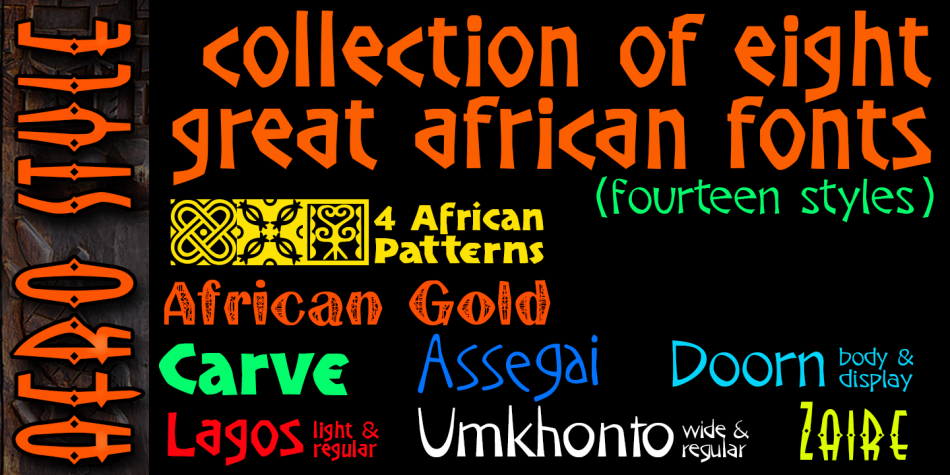
Afro Style Collection (14 fonts)
Four African patterns, two from central Africa, one from Mali, and one from the Zulu & Ndebele cultures of our province, KwaZulu-Natal, South Africa.
African Gold - a tribute to the men who labour to extract gold from under the city eGoli (Johannesburg). Used in large format, the intricate patterns within the font depict the delicacy of the metal.
The Assegai (or throwing spear) symbolises the bravery of the proud Zulu warriors. The Assegai font with it vigorous line, suggests the ever moving warrior.
Carve, robust, structured, bold and impassive, is reminiscent of the boldly carved masks of tribes of central Africa.
Doorn - display and body - is aptly named for the spiky thorns on the dry bushes of the Kalahari desert.
Lagos - regular and light - named for a city that is full of the energy and dynamism of modern Africa while retaining the essence of its tribal origins.
Umkhonto - named for “Umkhonto we Sizwe, the Spear of the Nation” - the armed branch of the ANC, whose members sacrificed so much for the freedom long denied them.
Zaire - captures the magic of the mask, representing the dance, the ceremony, the secret society. It evokes the very heart of Africa.